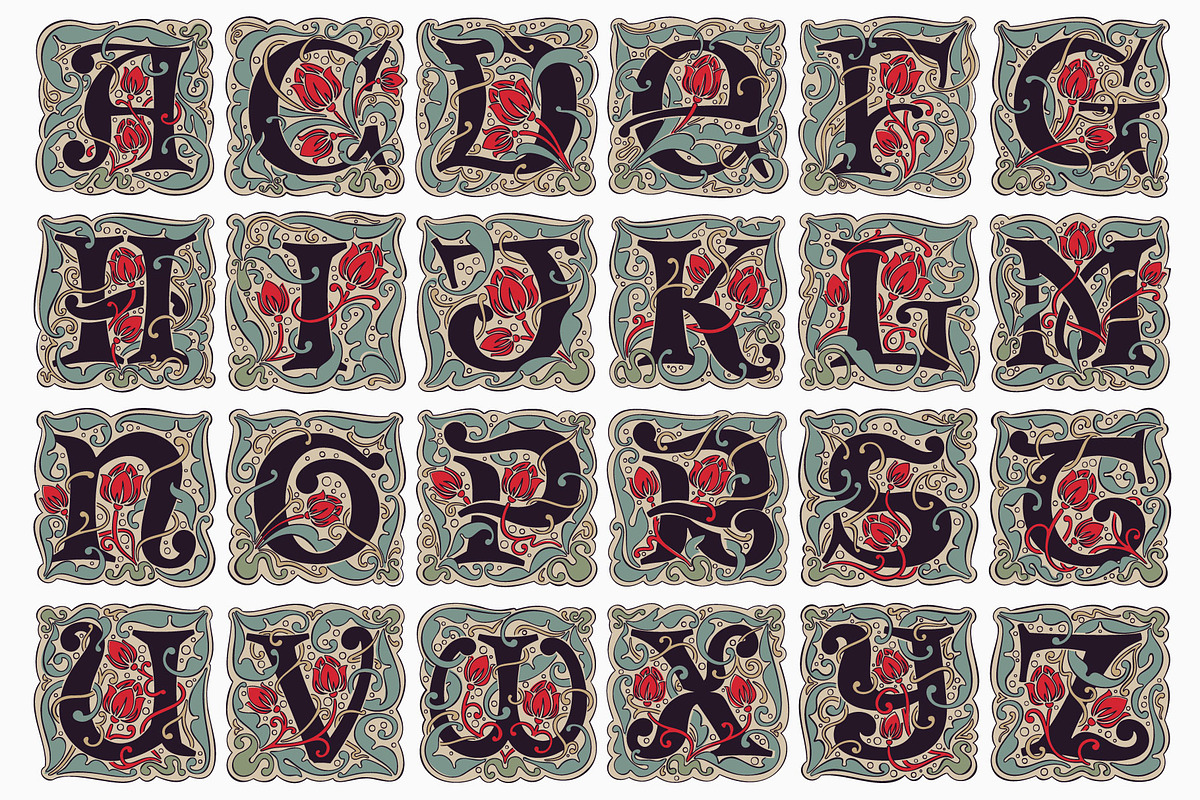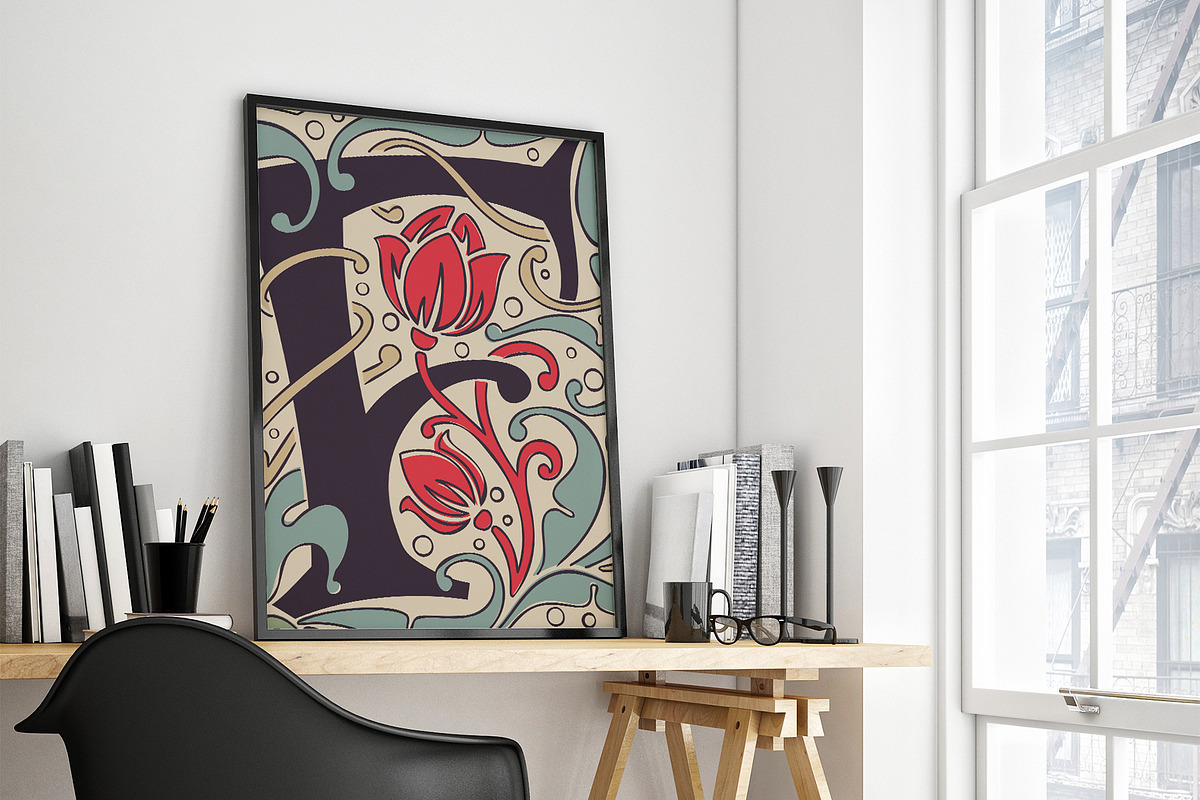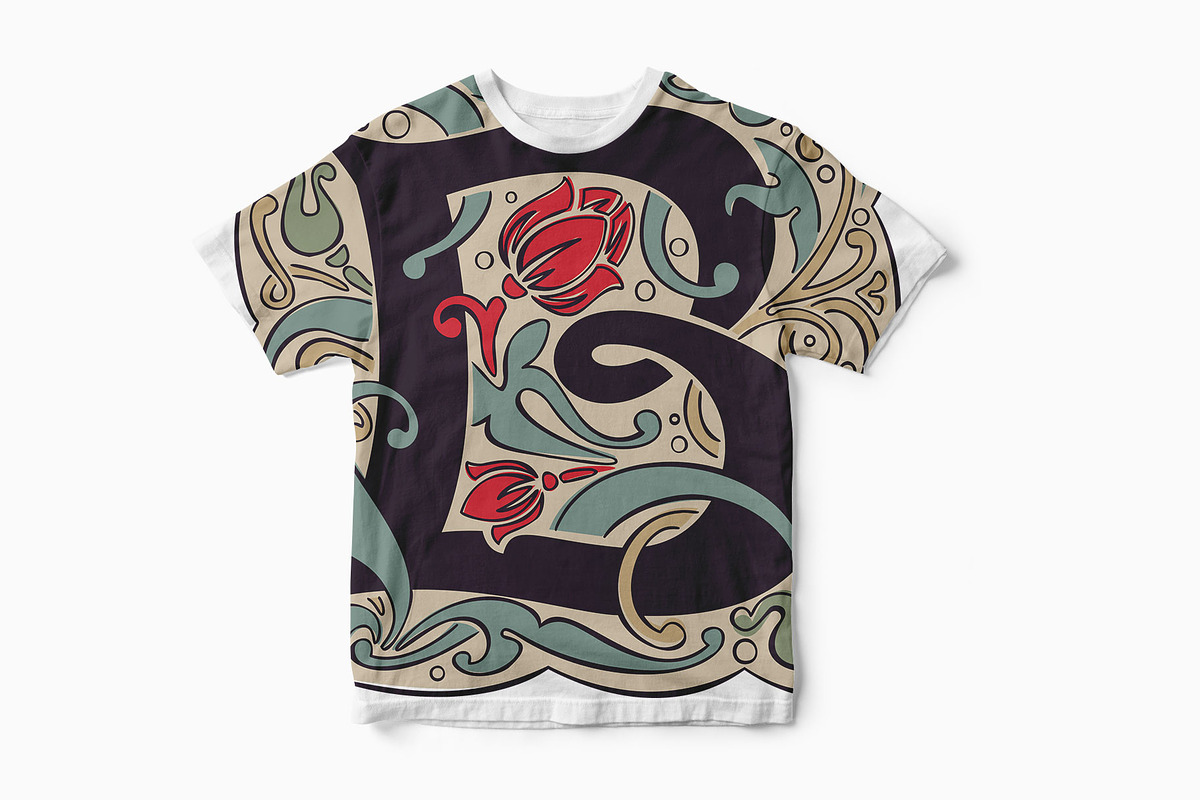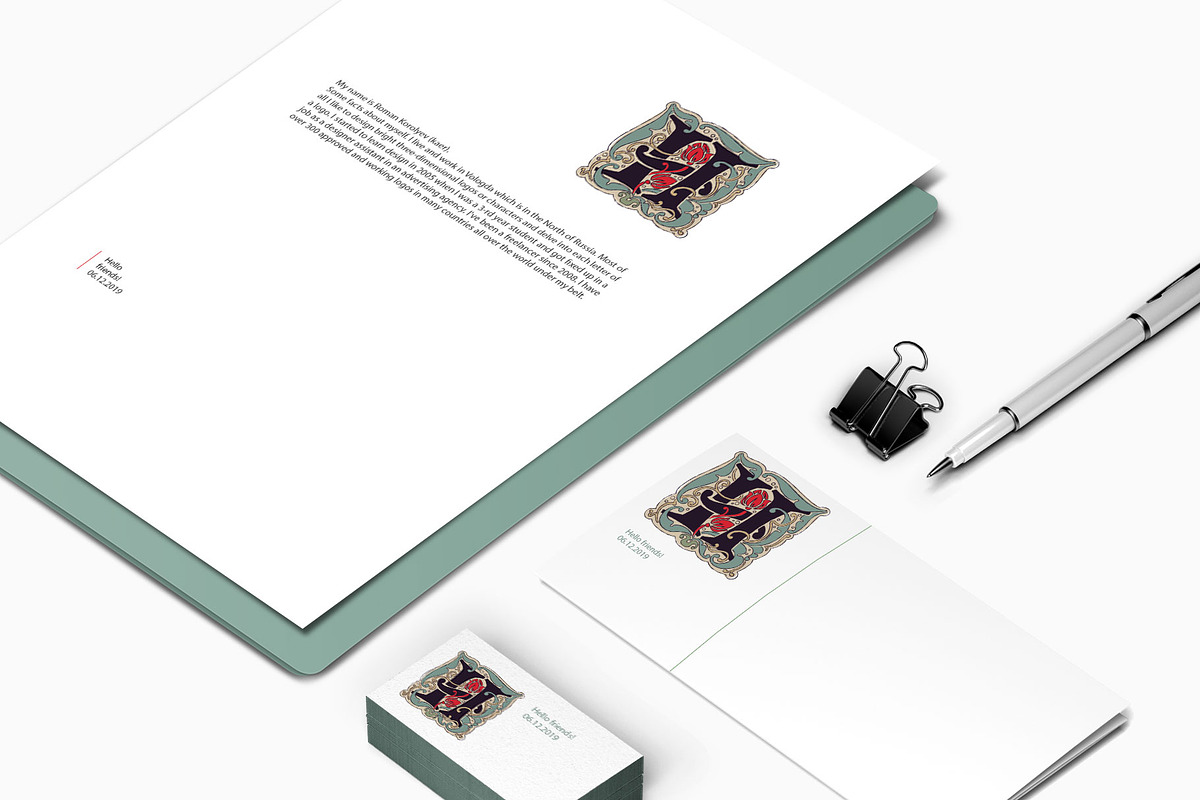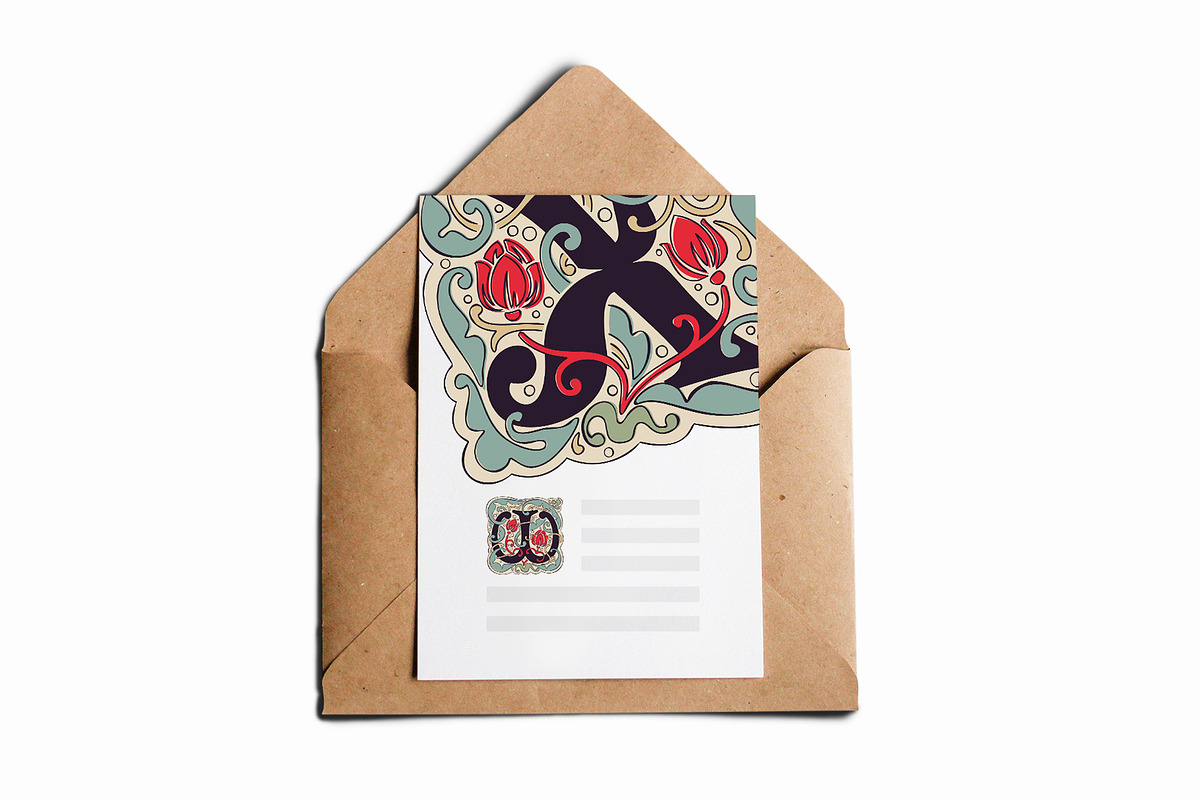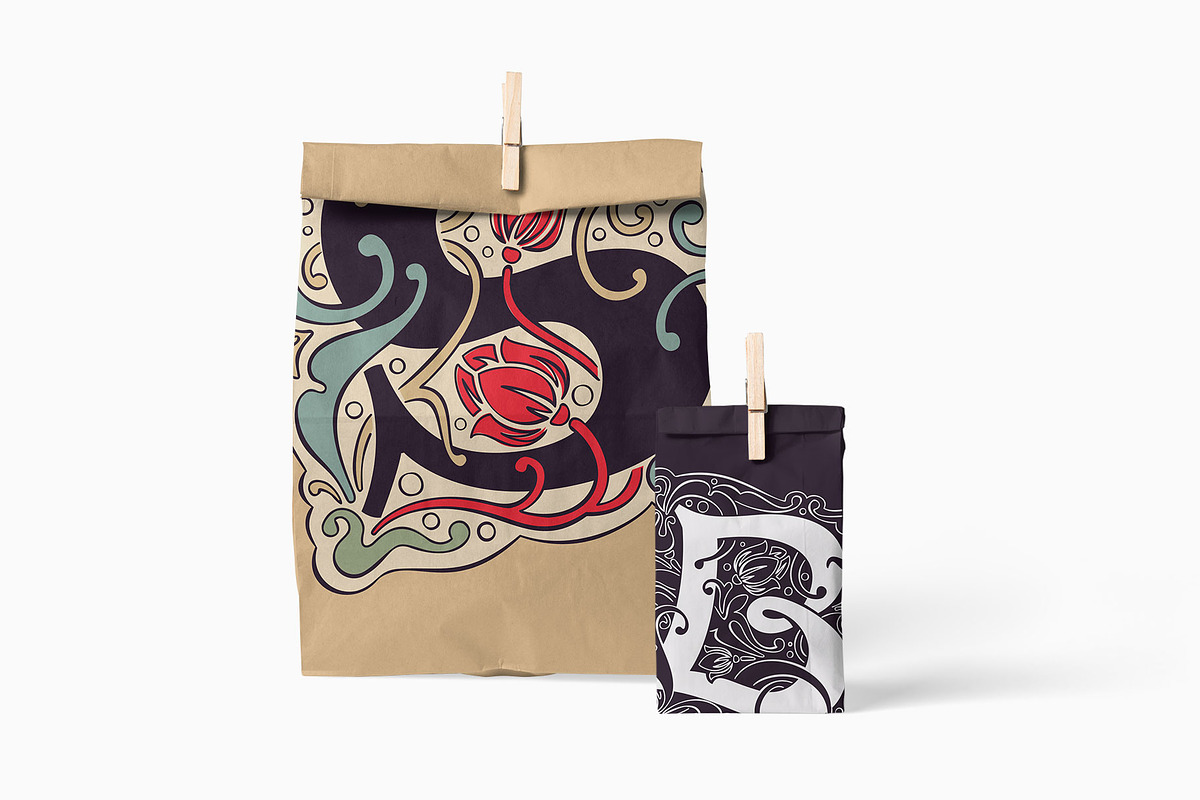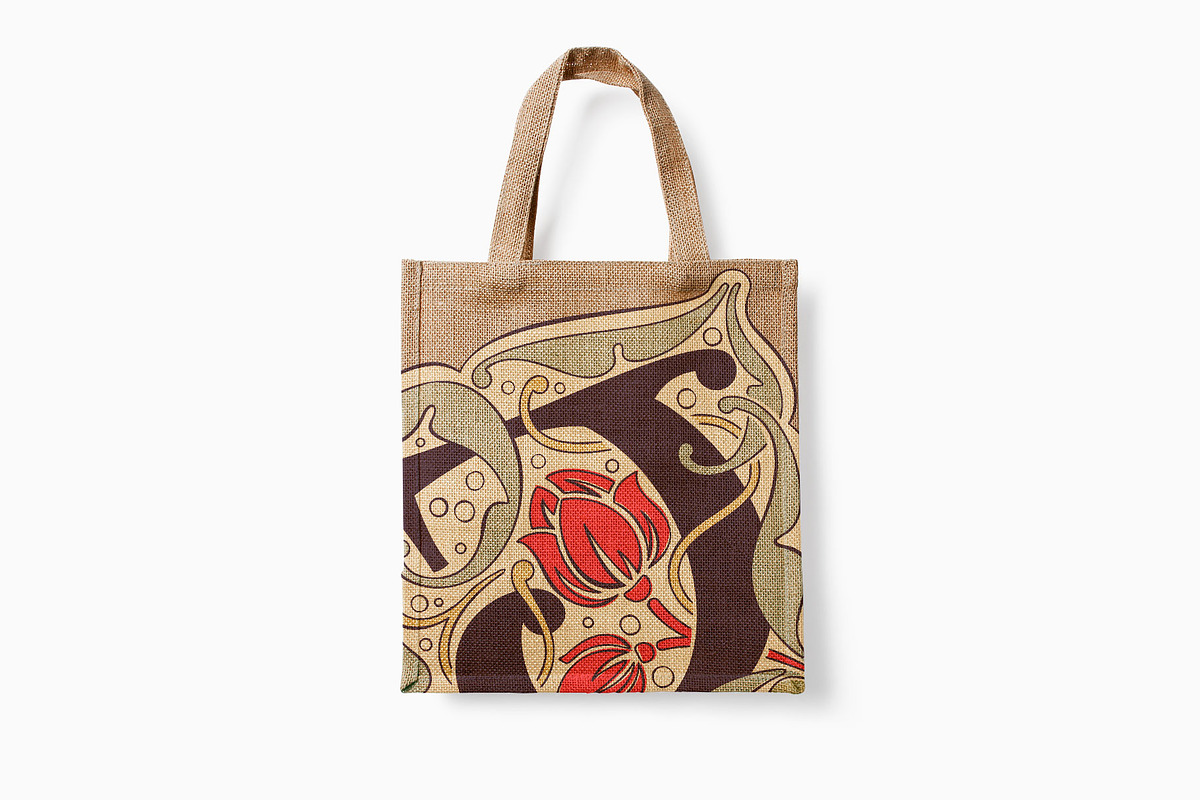
Antique Initials font
Hello, friends! I have a good news! At last I have finished working on my Antique Initials color font. Wow!
It was a long and hard work because every initial is unique. I sketched each letter of the font very scrupulously from scratch. Each letter is uniquely designed and has a unique flower pattern in the background. I used a pale old color palette to color these letters.
There came out two font variants: a black and white and a nice colored one. The font contains initials from A to Z (26 characters). Plus all symbols in Illustrator cc